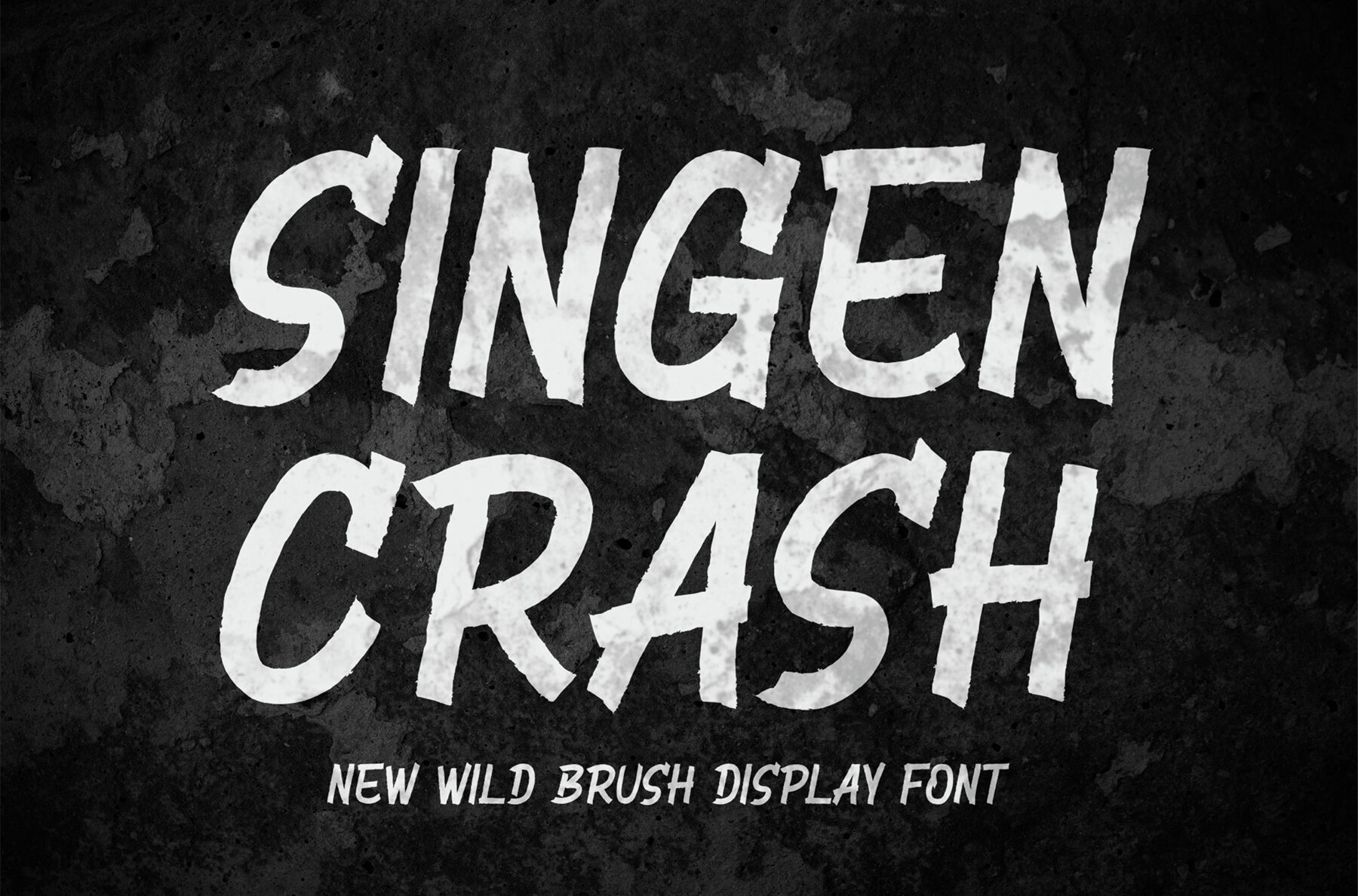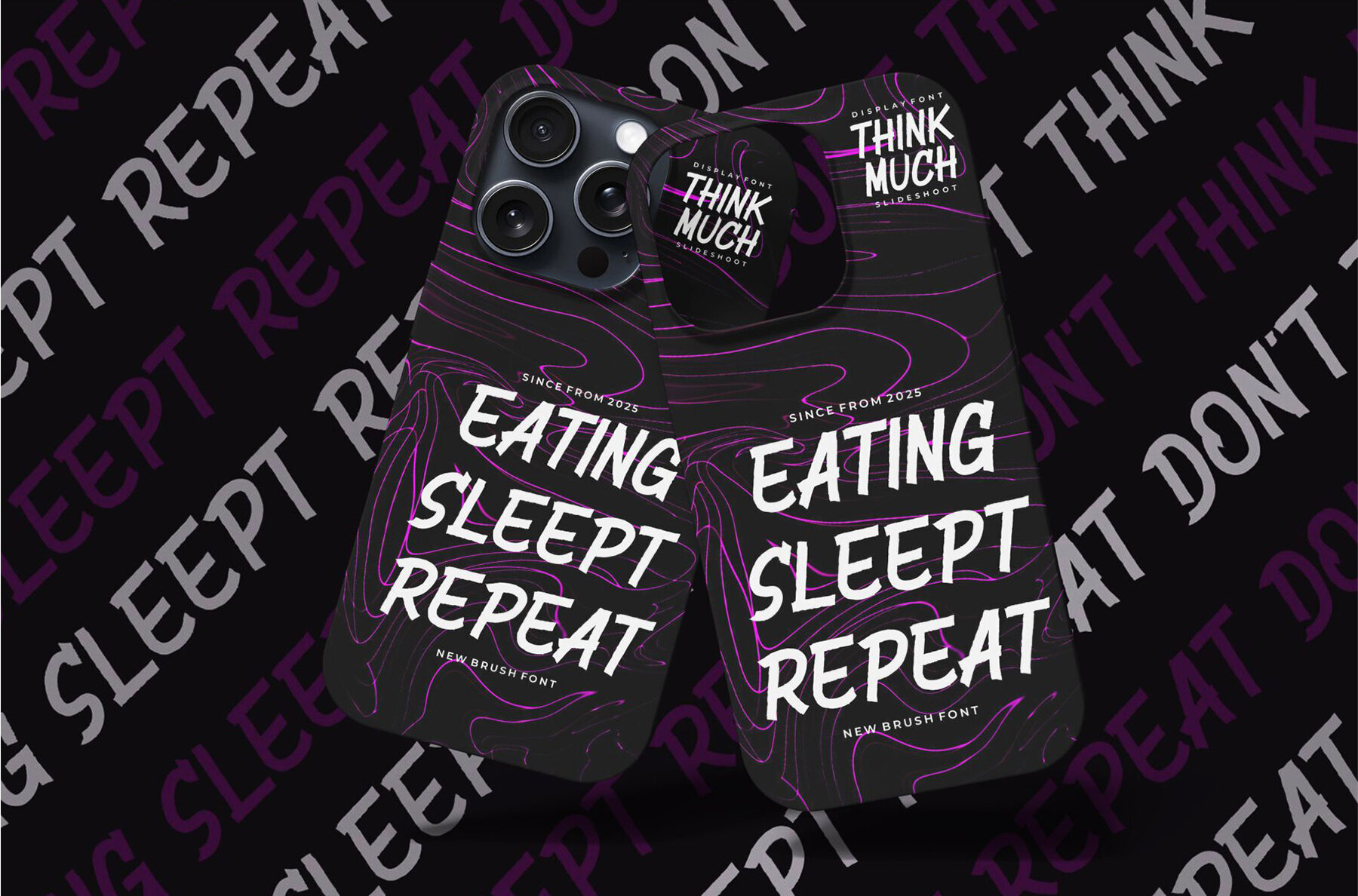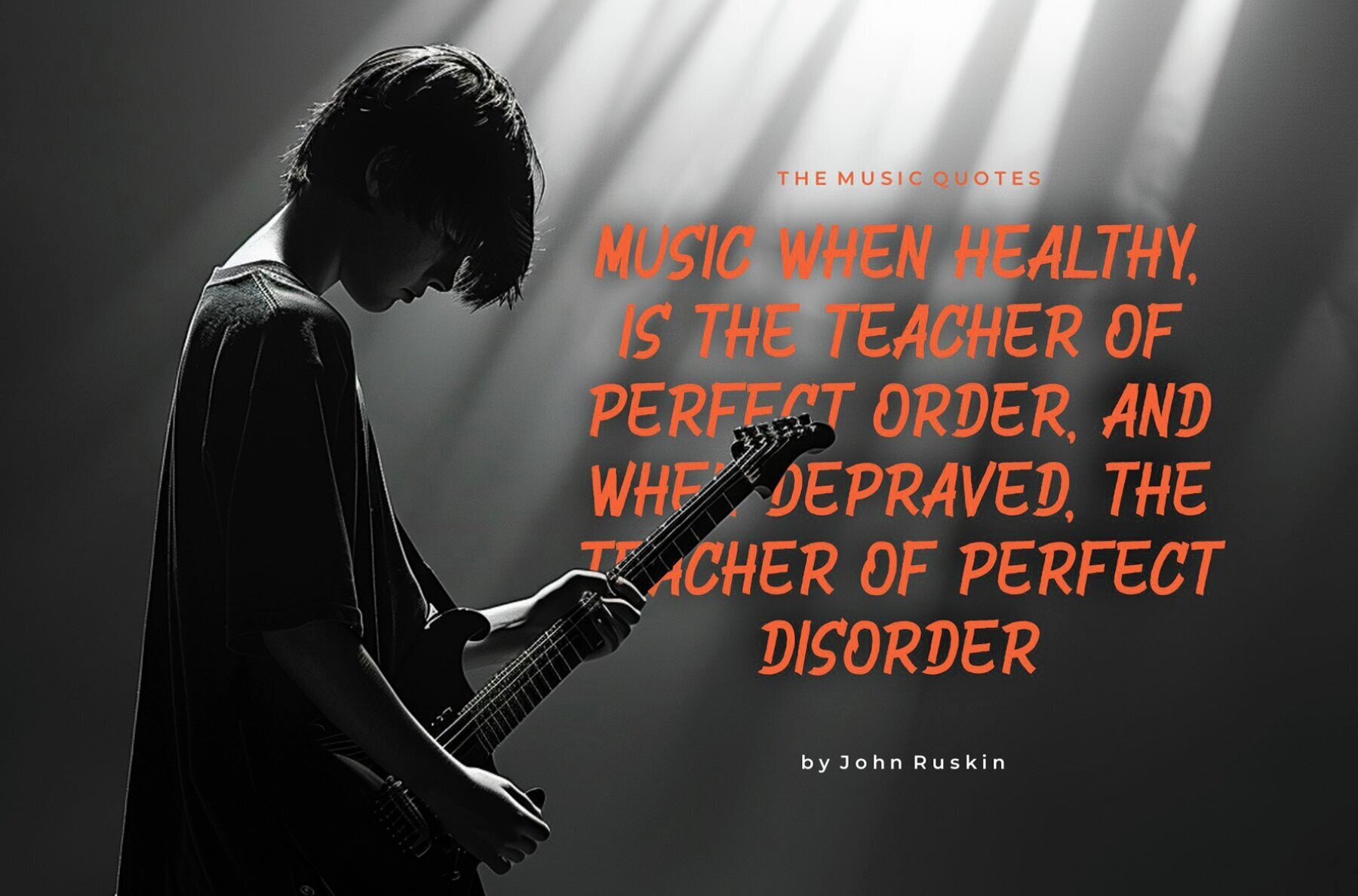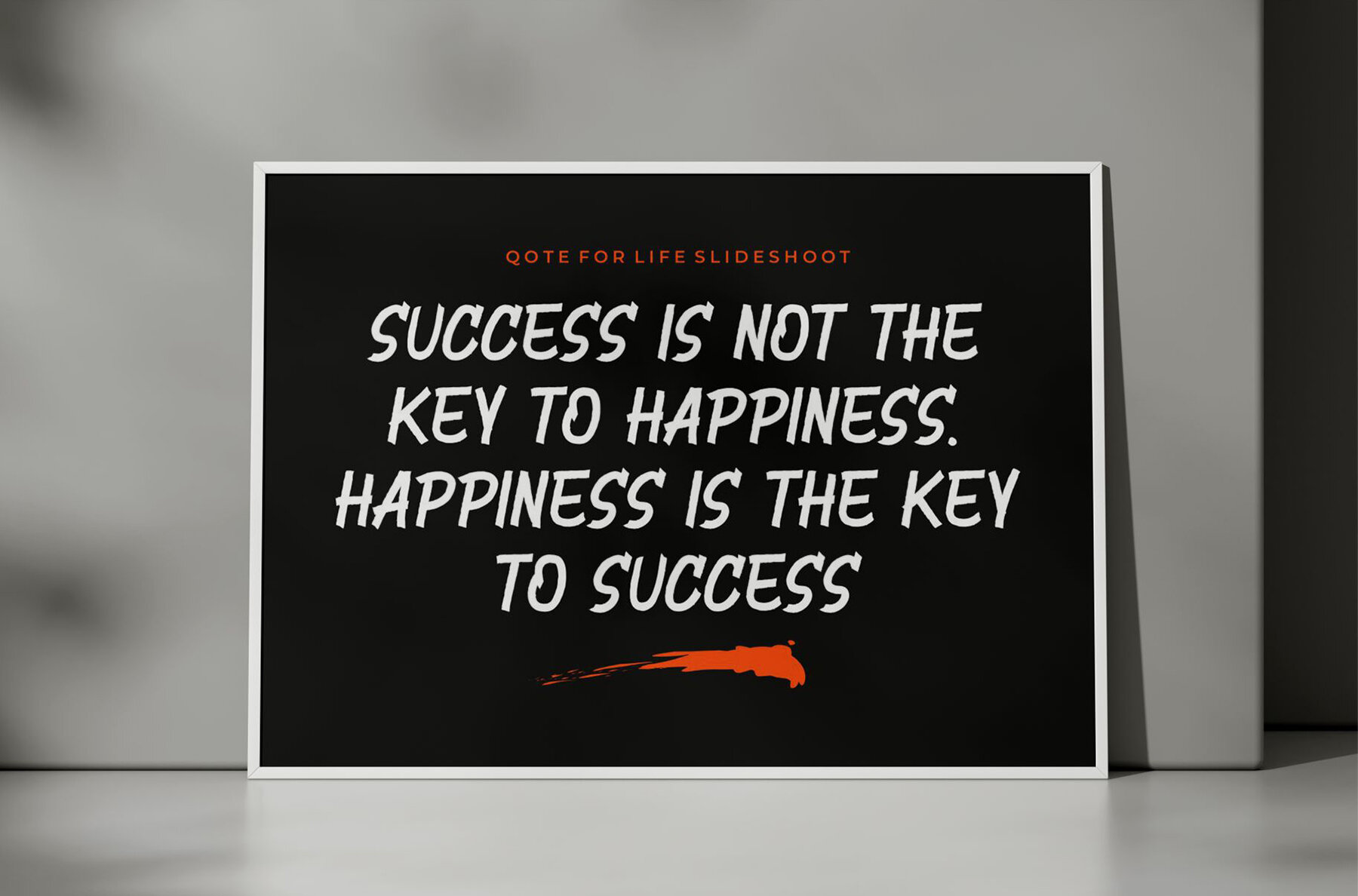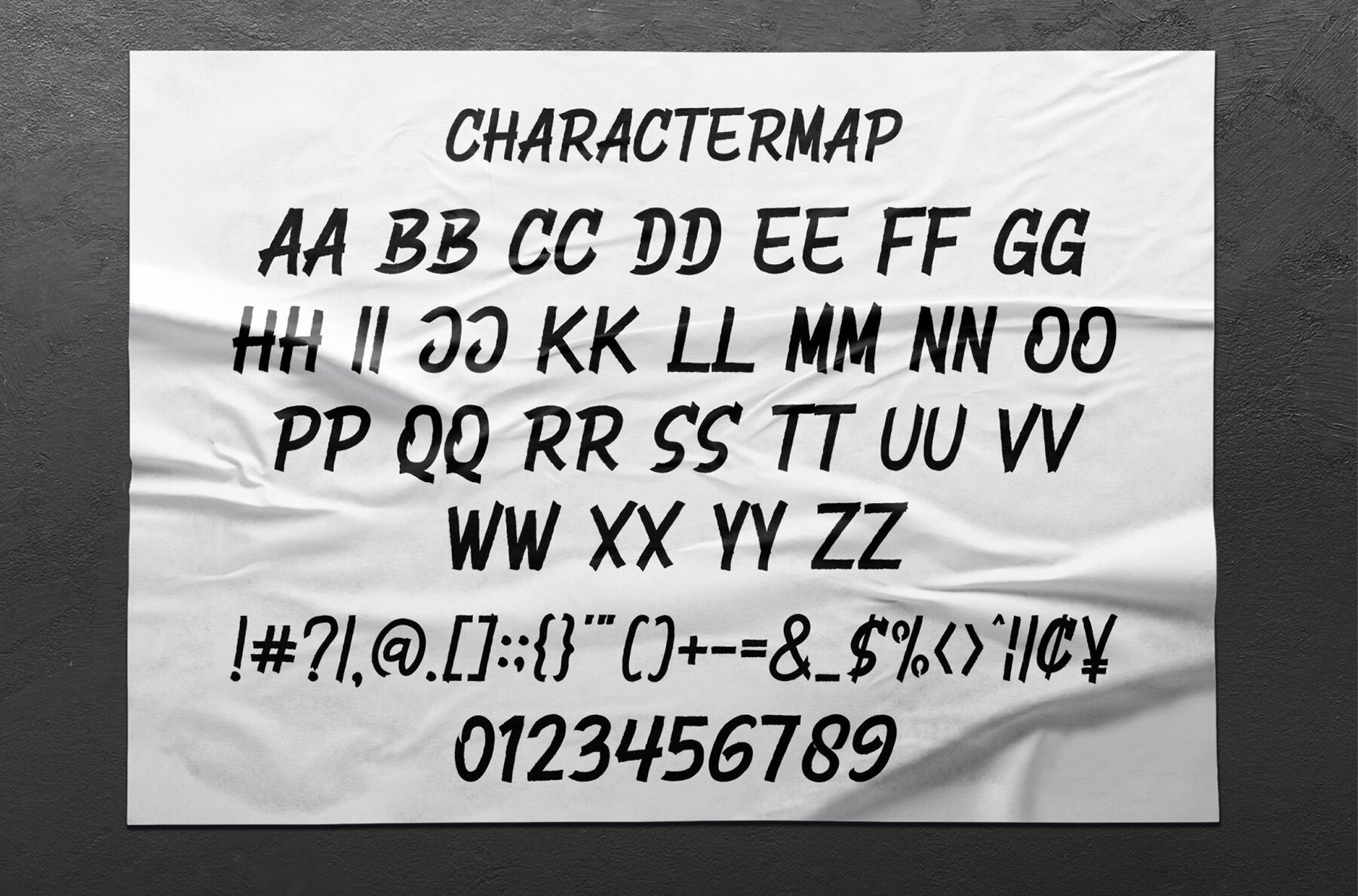
Singen Crash Font
Singen Crash
The Singen Crash font is a contemporary and playful display typeface with a charming, wood-themed design. This distinct brush font is ideal for a wide range of creative projects, adding a touch of modern flair and bouncy charm to your work. Whether you're designing invitation cards, company logos, movie titles, business cards, or book covers, Singen Crash provides an eye-catching and trendy option to elevate your designs.Singen Crash Brush Font